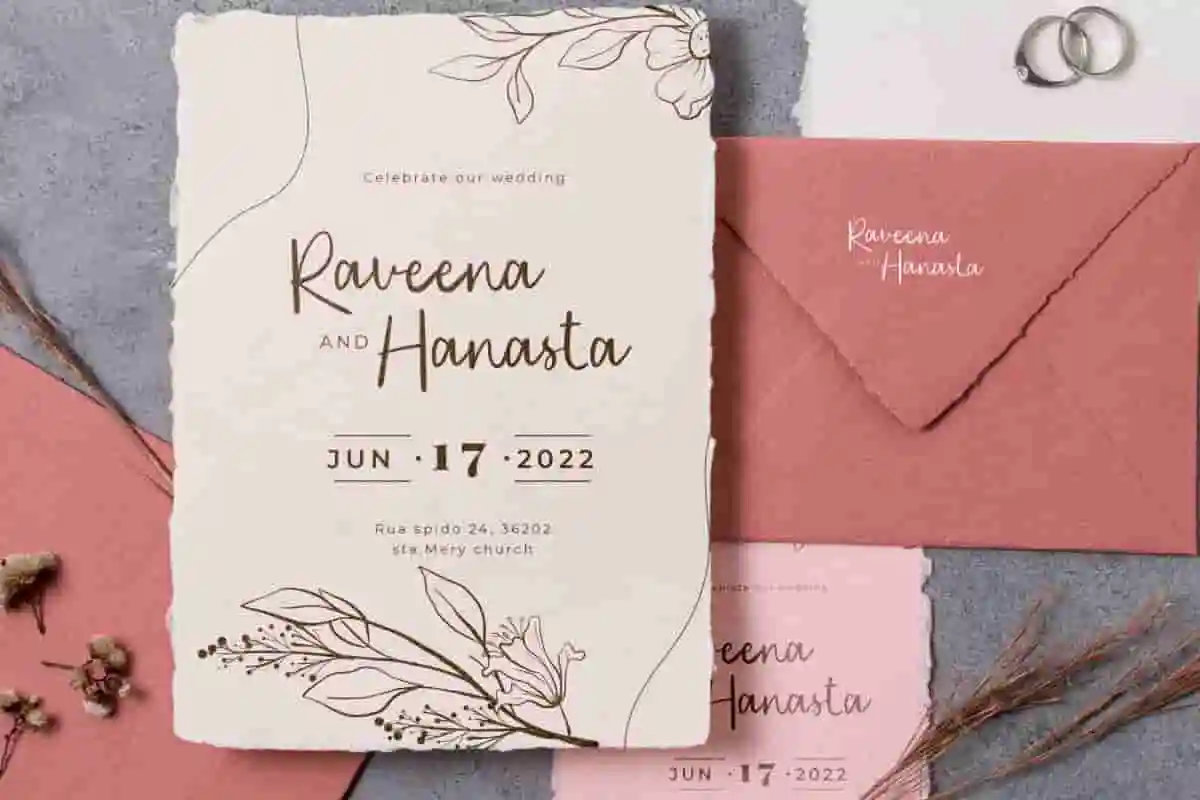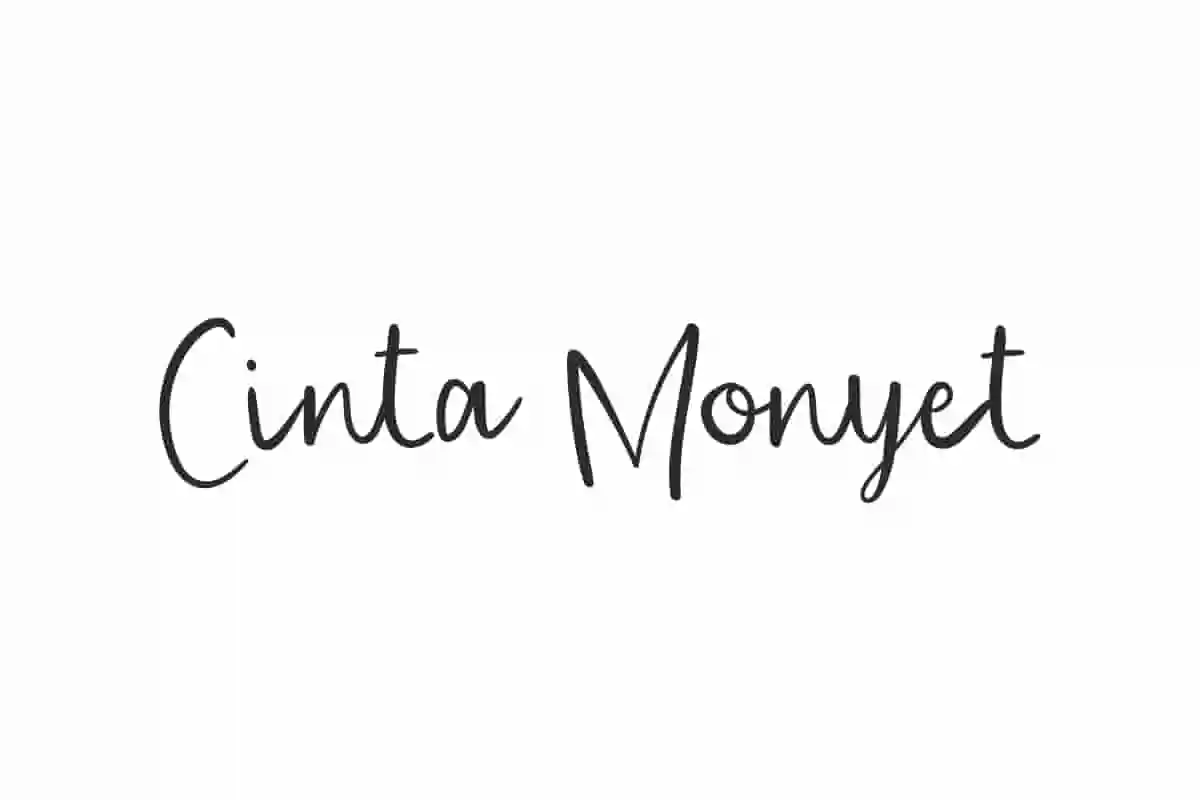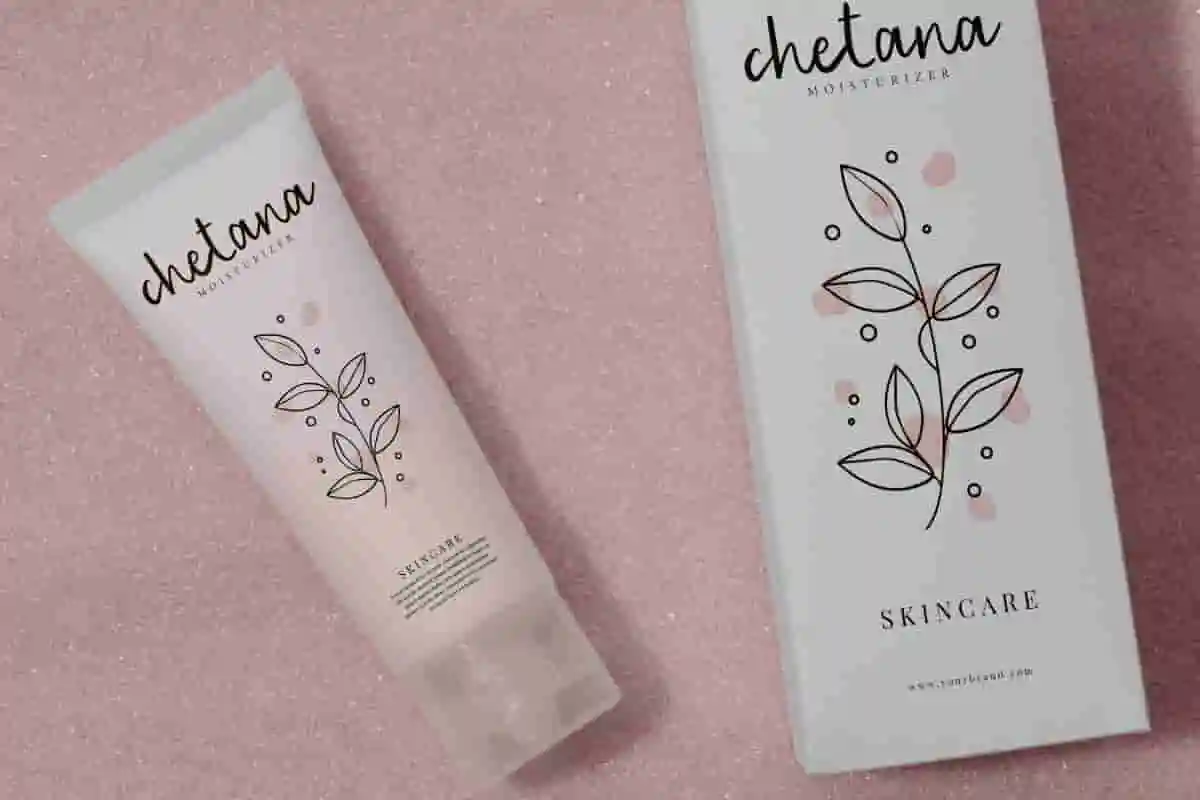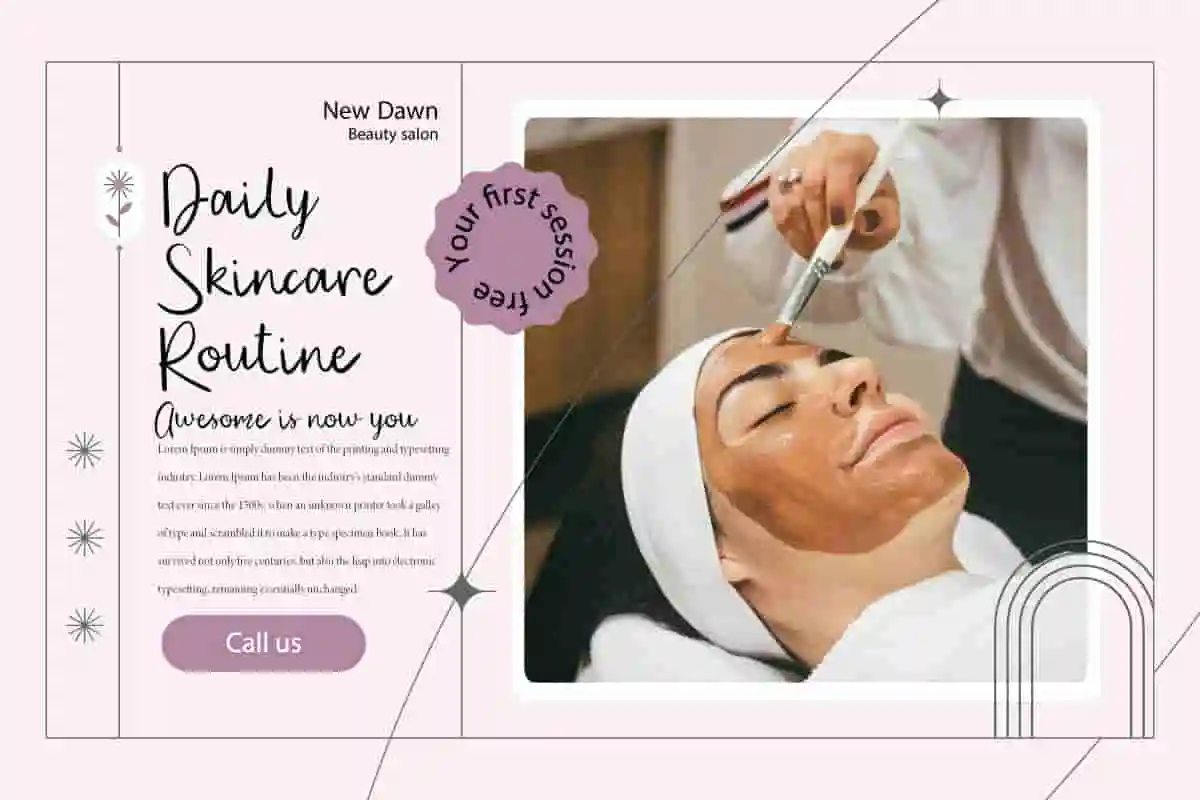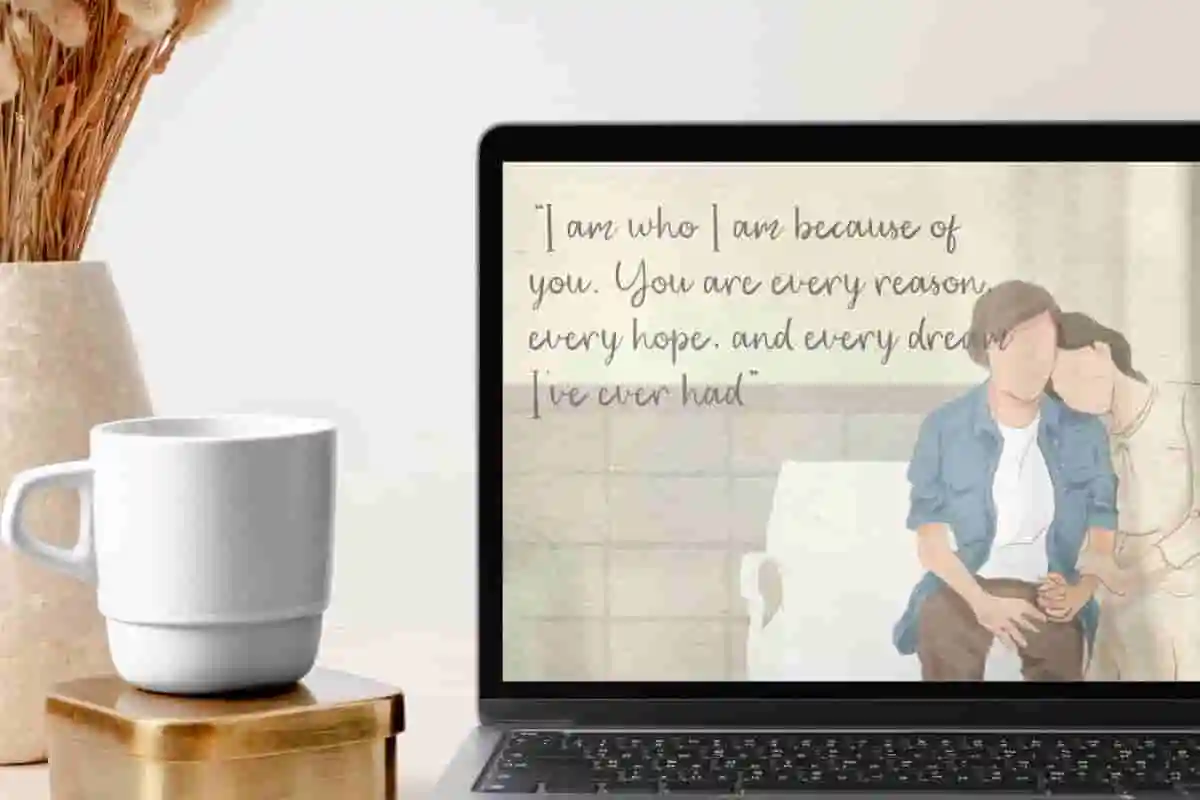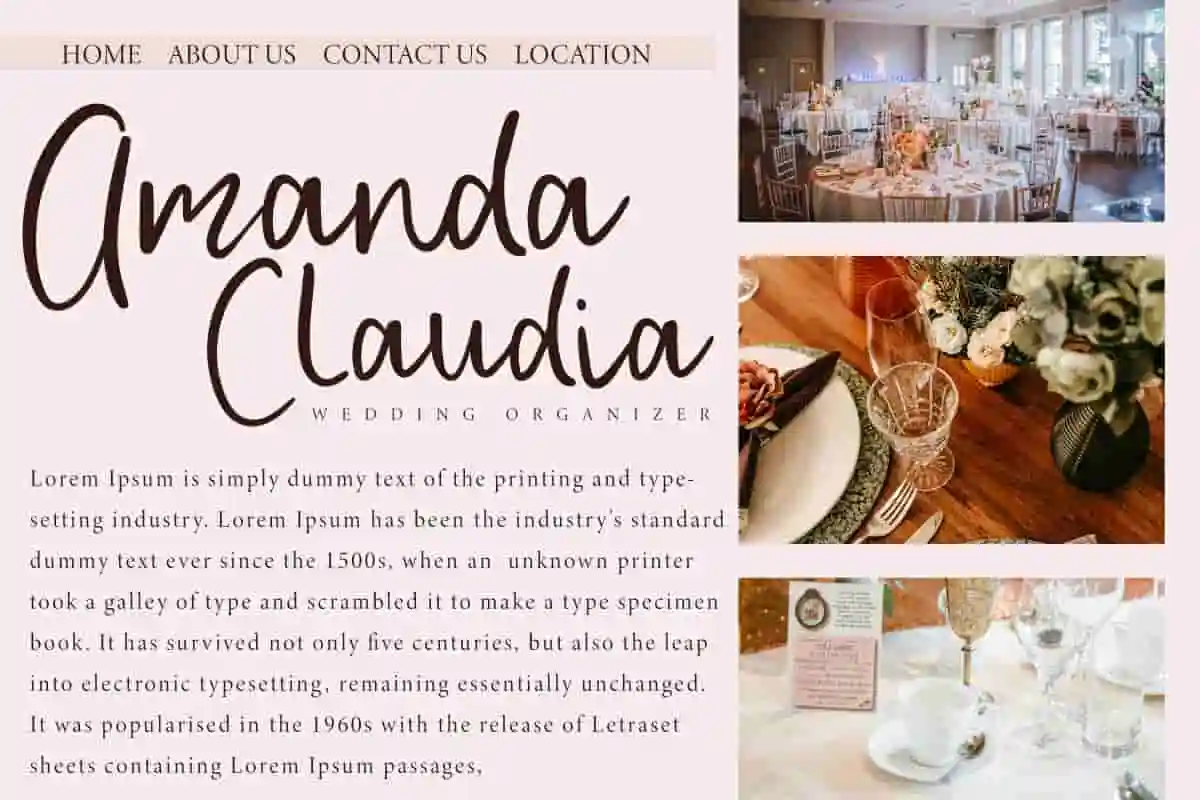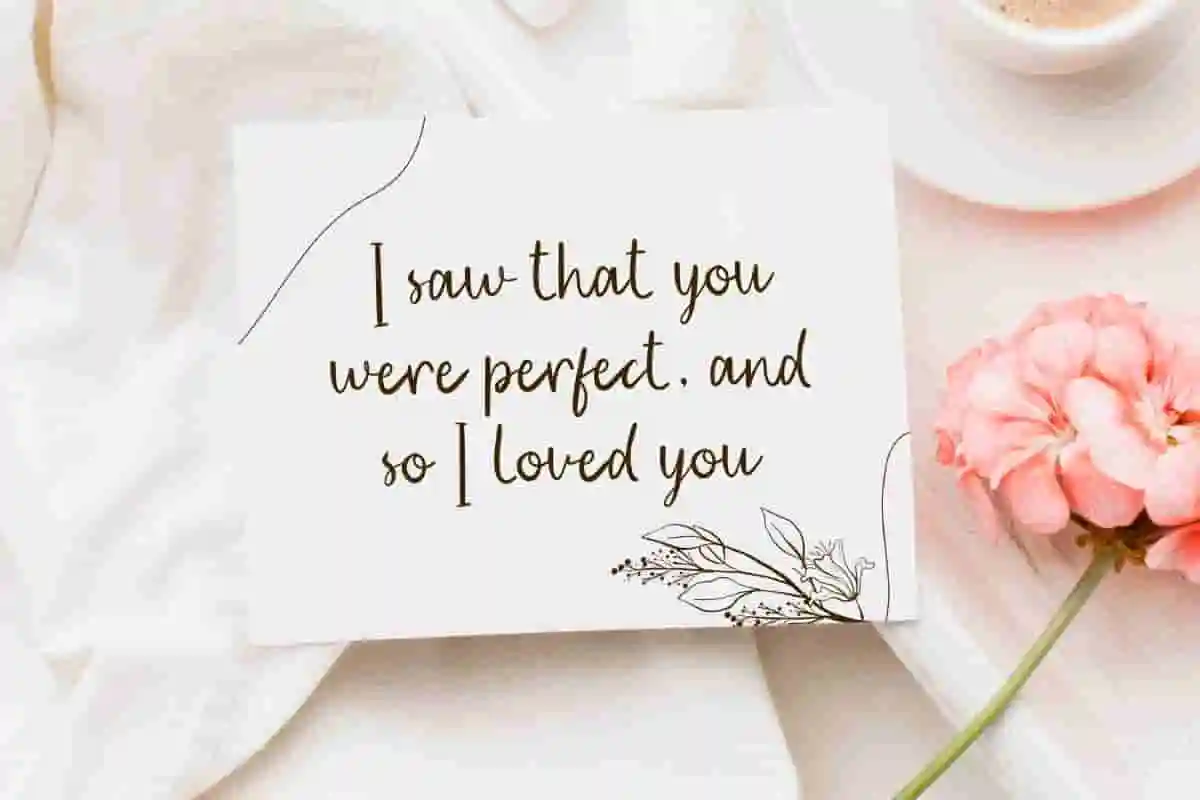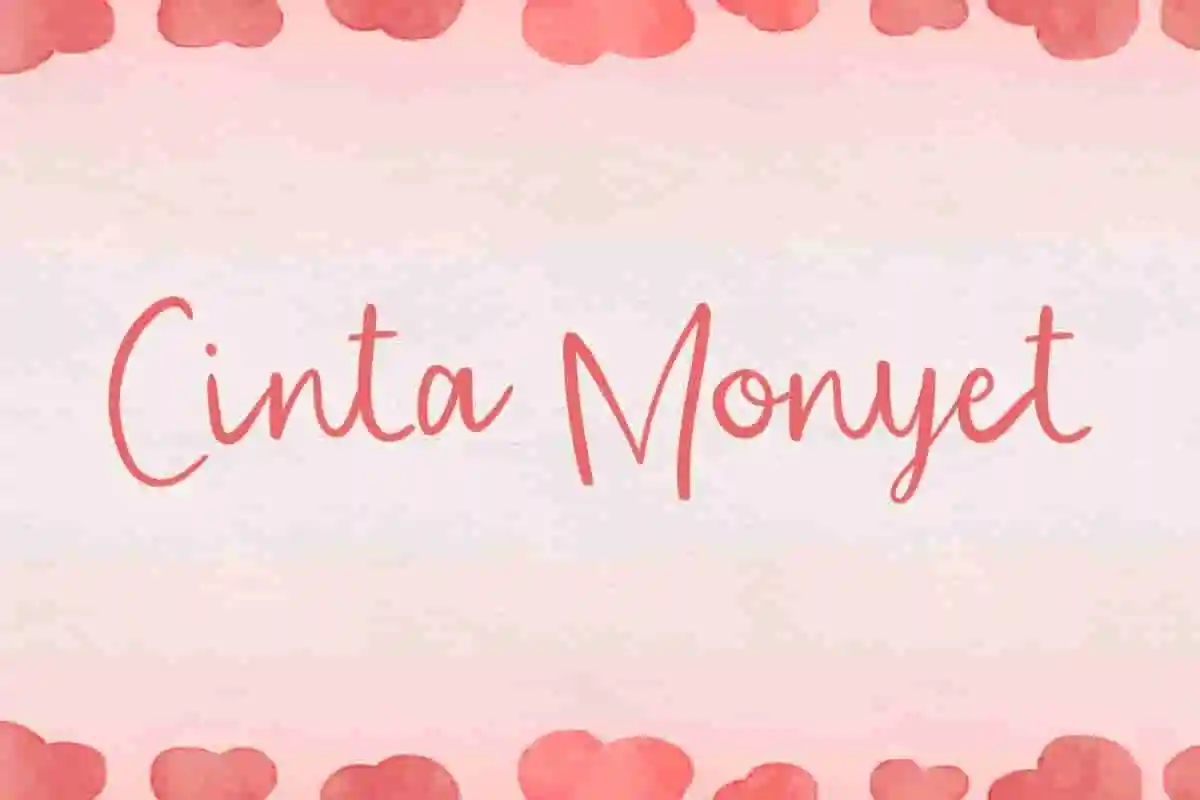
Cinta Monyet Font is a clean and casual handwritten script font. Offering a range of practical fonts to use as a primary or mix and match.
Cinta Monyet Font is a modern and refined handwritten font, handcrafted like using a marker resulting in a brush script font with balanced composition and precision. It can be used for banners, blog, greeting cards, headers, headline, invitation, label, logos, mockup, product packaging, quotes, stationery, sticker, template, title, watermark, website, and more.
Cinta Monyet Font comes with a full set of Uppercase and Lowercase Basic Characters, Number, Punctuation, and Symbol. Use this font set and let the natural letterforms flow beautifully until you create the look you desire. It can be used for authors, cosmetologist, event organizer, graphic designer, hospitality, photography, skincare, spa salon, wedding, writer, and more.